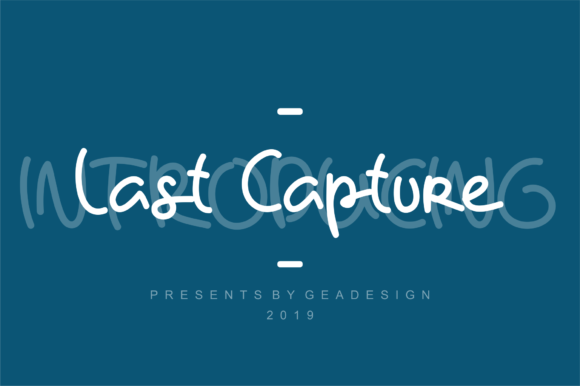
Welcome to the realm of typography, where words transcend the mundane and become art. Meet Last Capture, the exquisite script font family, crafted by the visionary minds at geadesign. This collection is not merely a set of letters; it's a voyage into the depths of creativity, a symphony of strokes and curves that will transform your designs into captivating masterpieces.
Immerse yourself in the allure of Last Capture's characters, meticulously designed to evoke a sense of authenticity and harmony. Each glyph dances across the digital canvas with an organic, handwritten charm, as if plucked from the pages of a forgotten journal. Experience the fluidity of the serifs, the graceful swashes, and the subtle nuances that give life to every word.
Picture your designs adorned with Last Capture's timeless elegance. Your logos will exude a touch of sophistication, leaving an indelible mark on the minds of your audience. Your invitations will radiate warmth and charm, inviting guests to step into a world of enchantment. Your social media posts will captivate followers with their visual allure, making every scroll a journey into the extraordinary.
Whether you're a seasoned designer or just starting your creative journey, Last Capture is your trusted companion. Its versatility knows no bounds, seamlessly adapting to a myriad of projects and styles. Create eye-catching headlines that demand attention, weave captivating narratives in your branding materials, or add a touch of whimsy to your personal projects. The possibilities are boundless, limited only by your imagination.
In a world of digital noise, differentiation is key. Last Capture grants you the power to stand out, to make your designs resonate with authenticity and artistry. Embrace the allure of the written word, elevate your projects to new heights, and leave a lasting impression on all who encounter your creations.
Last Capture awaits you, ready to ignite your creativity and transform your designs into works of art. Embrace its magic today and embark on a typographic adventure that will leave you spellbound.